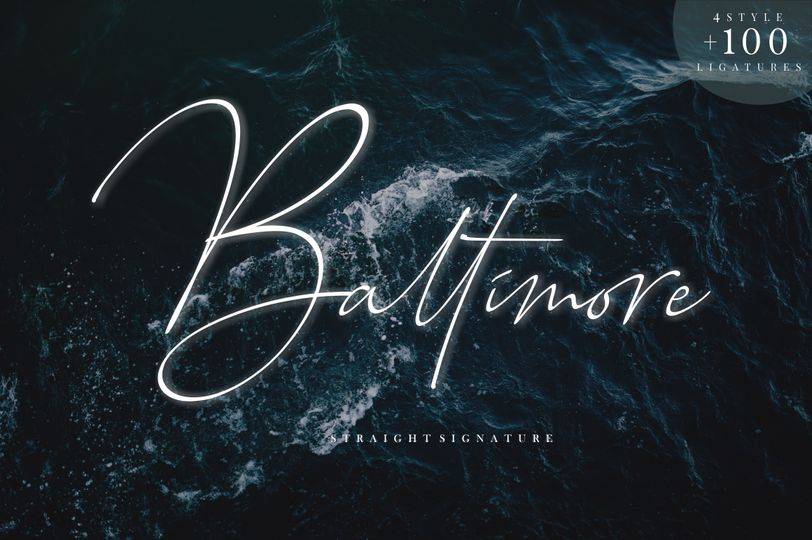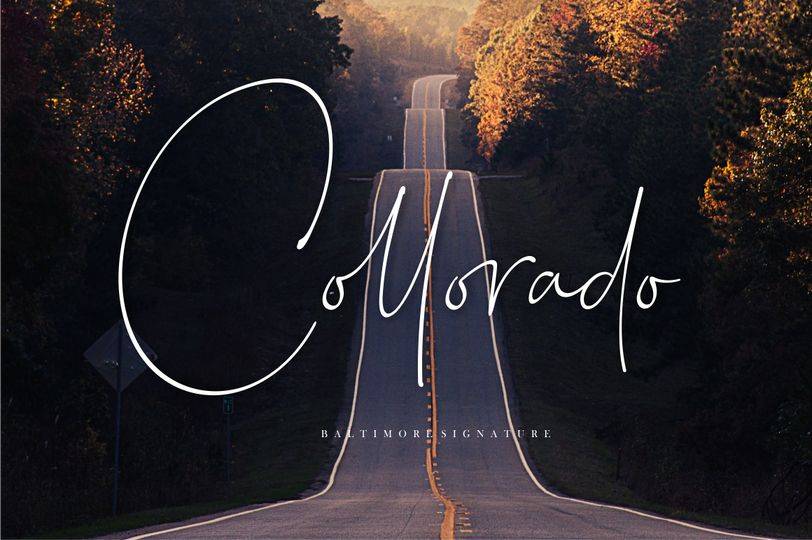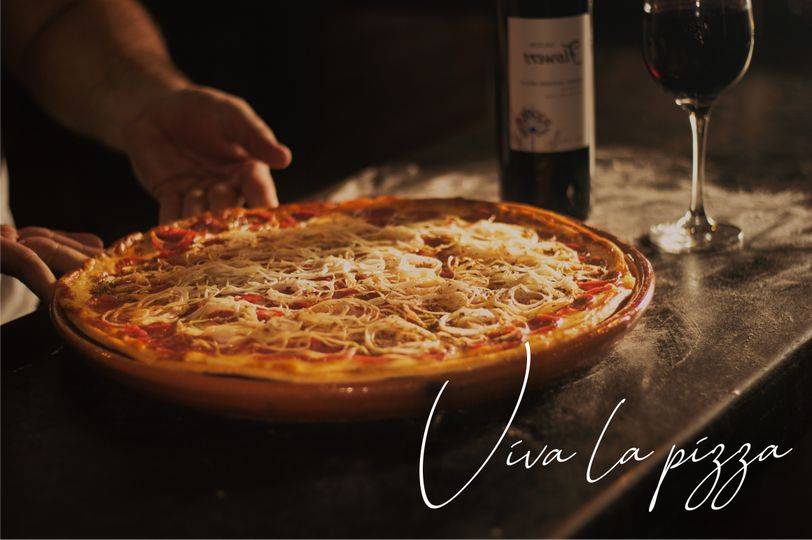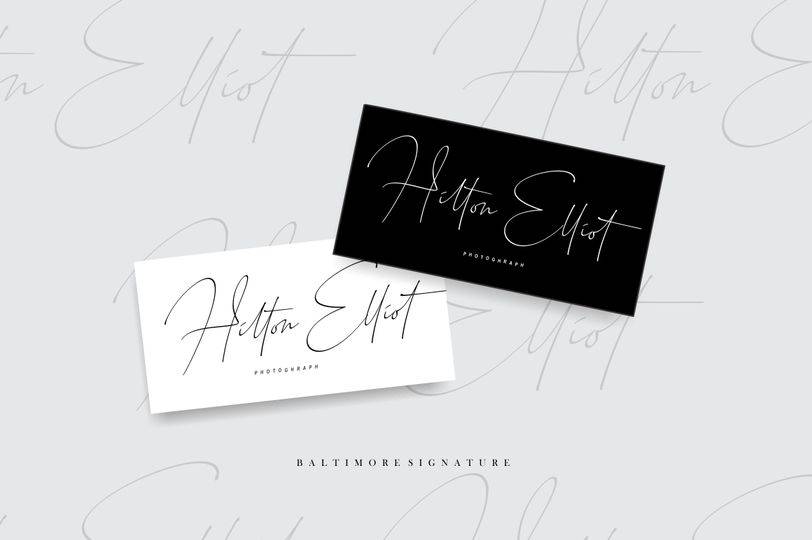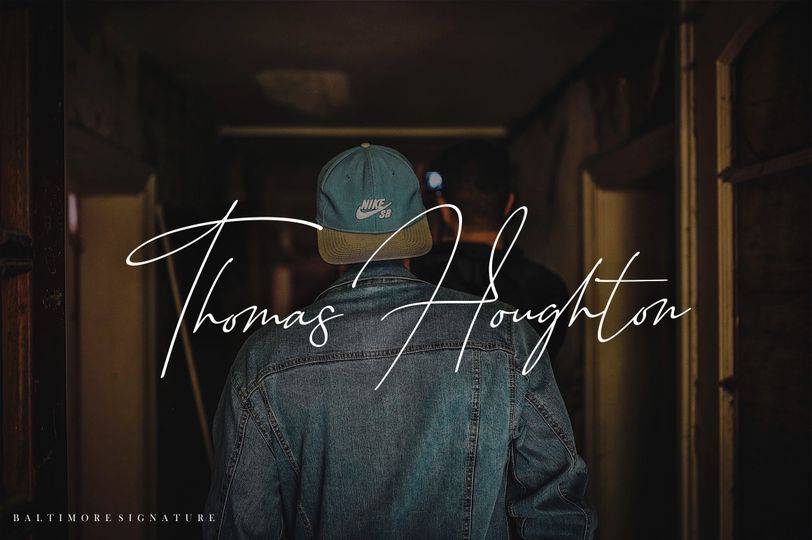
Baltimore Font is an elegant, handwritten script with a light, airy feel created by its fine, flowing strokes and tall, narrow letterforms. Its delicate and graceful style suits projects that want to convey sophistication and personal charm, making it ideal for wedding invitations, fashion branding, and stylish logos. This font’s unique, artistic character adds a modern yet romantic touch perfect for creative and luxury designs.
Baltimore Font
About Baltimore Font
| Font family | Baltimore Font |
| Designer | Sronstudio |